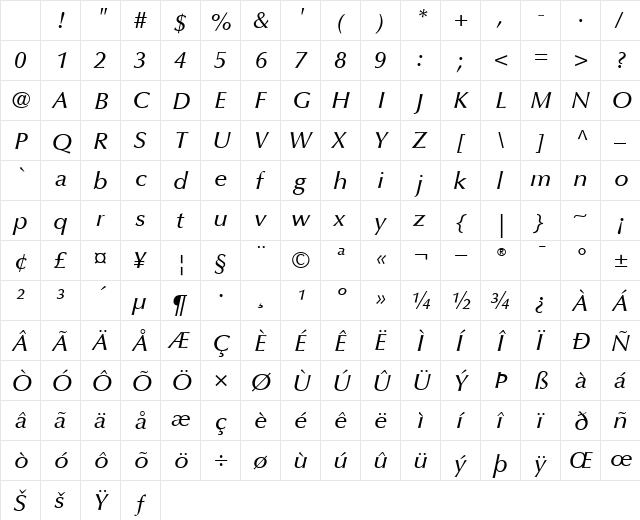
Optima-Medium MediumItalic
Style: MediumItalic
Complete Optima-Medium MediumItalic glyph index. Displaying only characters natively supported by Optima-Medium MediumItalic font.
Design Context for Optima-Medium
Optima-Medium is a composed and adaptable typeface that performs quietly and consistently across a wide range of design contexts. The slanted form adds forward momentum and visual energy.
Pro Tip: Use Optima-Medium for emphasis, pull quotes, and subheadings where its slanted energy can add rhythm to the layout.